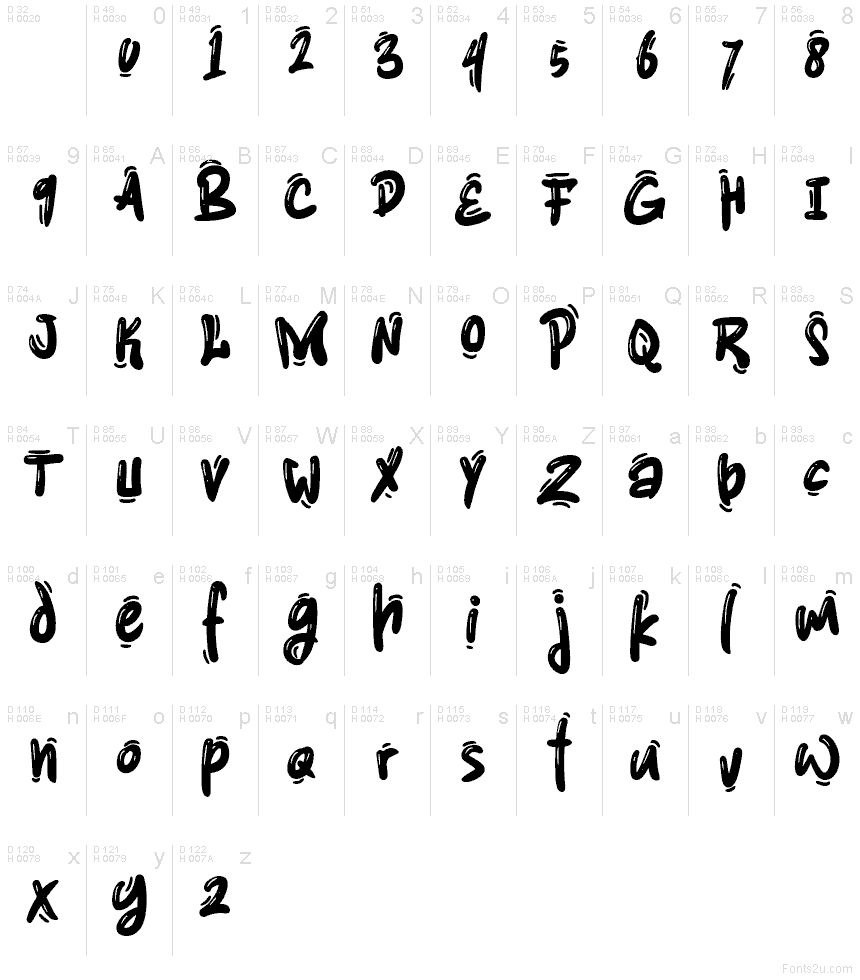
Graff Punks
Graff Punks font by Fontherapy is a free graffiti typeface. Its thick, inky strokes look like they came straight off a chisel-tip marker—fast, a little messy, and full of bounce. Soft smudges and quick flicks at the ends add motion, so headlines feel like they were tagged moments ago.
Using Graff Punks, you can punch up streetwear logos, festival posters, skate deck graphics, album covers, YouTube thumbnails, and food truck branding, plus sticker packs that beg to be slapped on. This free font holds attention at large sizes and stays legible. Pair it with a plain, modern sans for details to keep the chaos focused.